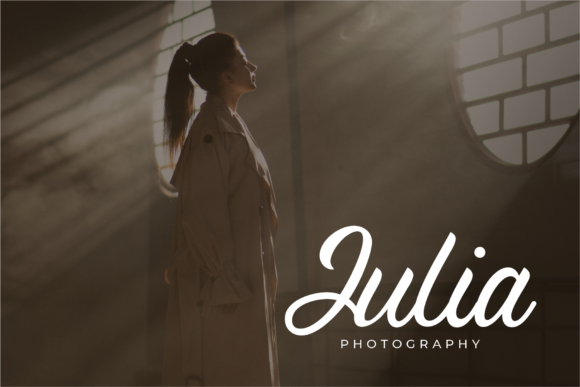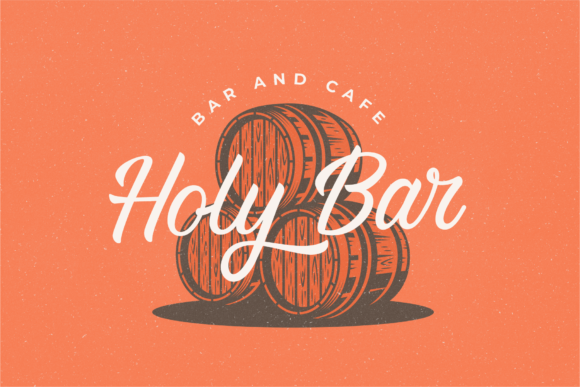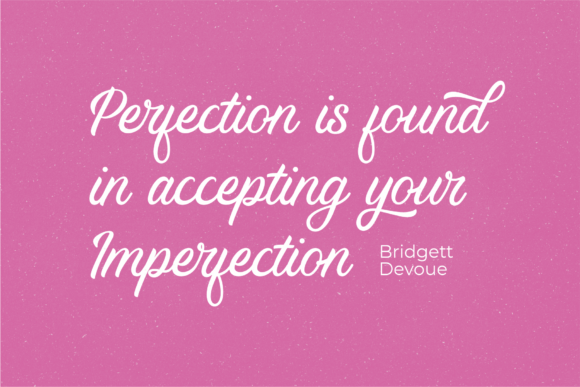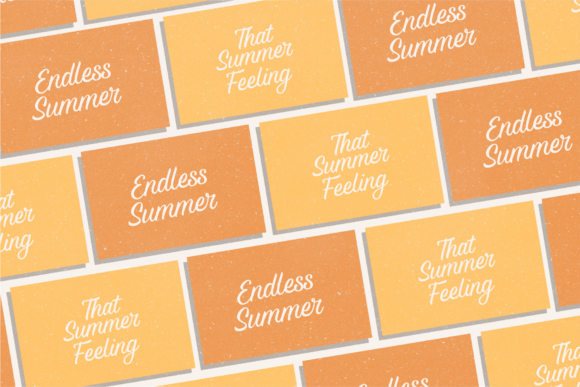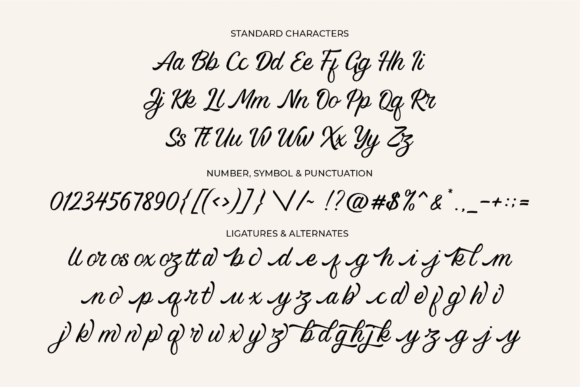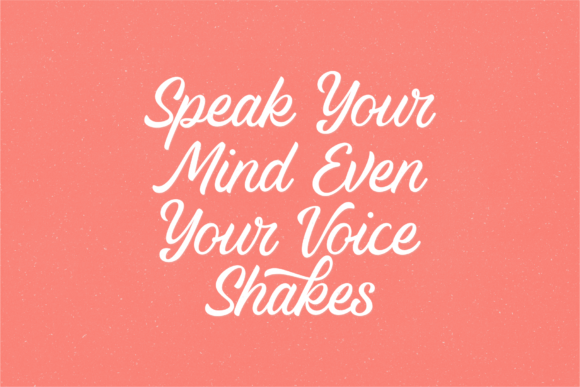
Alluring Calligraphy Font
About Alluring Calligraphy Font
Alluring Calligraphy is a lovely script font featuring charming, playful characters that seem to dance along the baseline. Add this font to your most creative ideas, and notice how it makes them stand out!